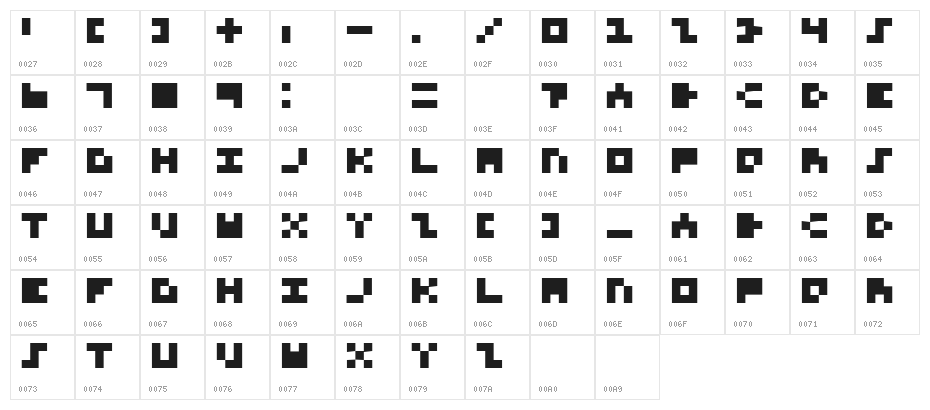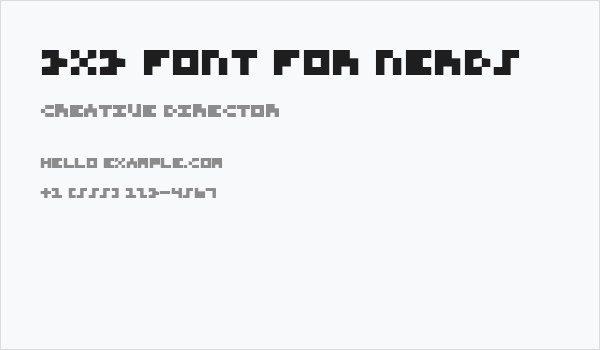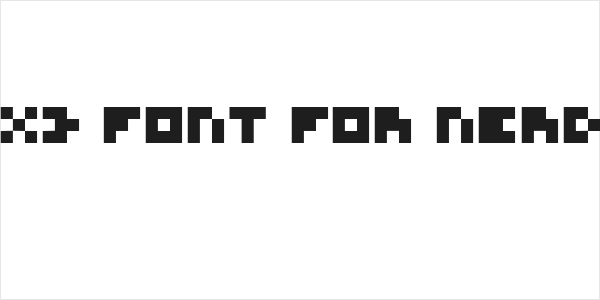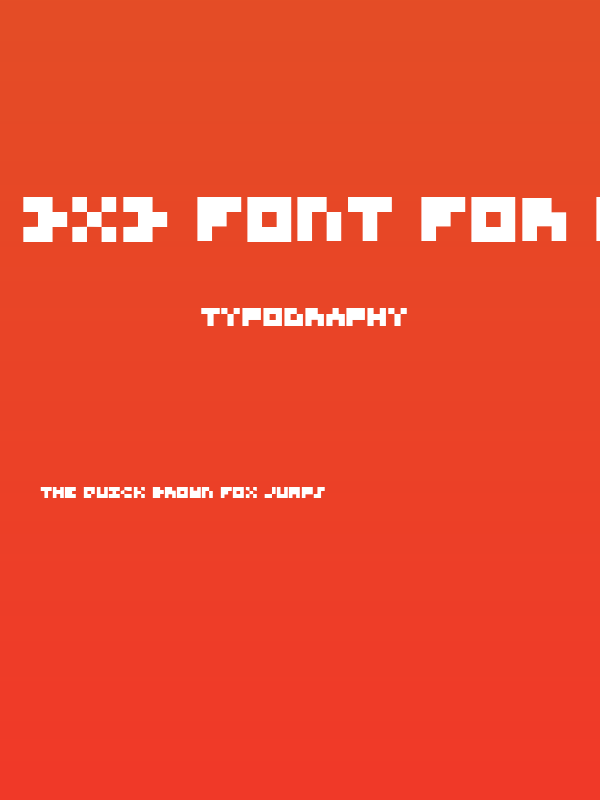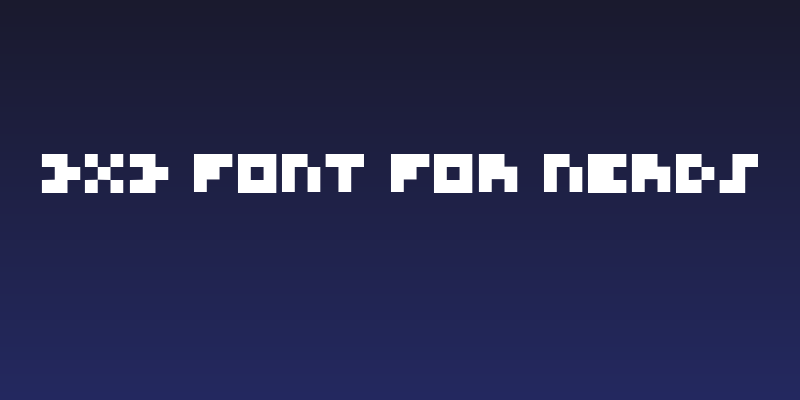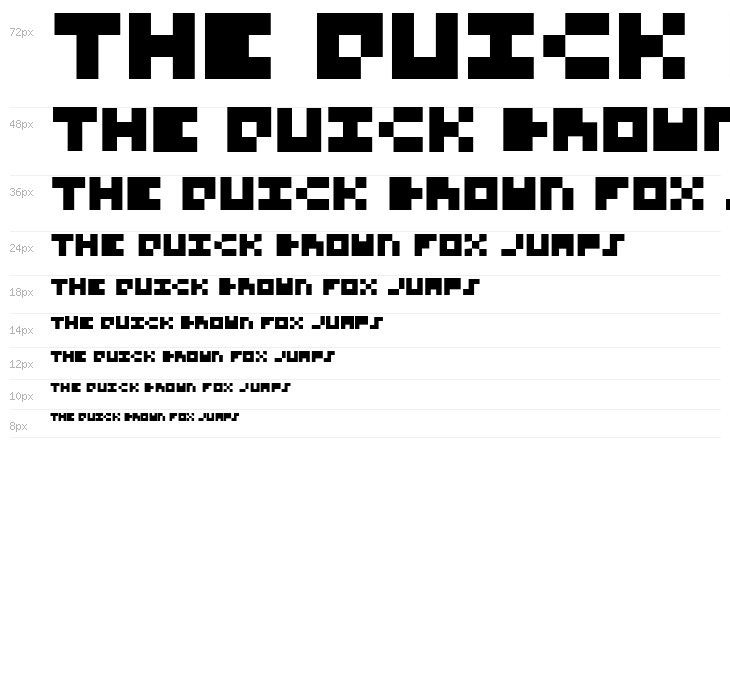
3x3 Font for Nerds Font
3x3 Font for Nerds Description
This font features a distinct pixelated design, reminiscent of early digital displays and retro video games. Each character is constructed with a grid-like pattern, giving it a blocky and geometric appearance. The uppercase and lowercase letters maintain a consistent style, with minimal differentiation between the two cases. Numbers and special characters follow the same pixelated theme, ensuring uniformity across all glyphs. The font's simplicity and uniformity make it highly legible, even at smaller sizes, while its unique style adds a nostalgic and playful touch to any project.
| Overall Style | Retro, Playful |
| Use Case | Headlines, Logos, Digital Art |
| Proposed Projects | Ideal for retro-themed designs, video game graphics, digital art projects, and any creative work seeking a nostalgic or playful aesthetic. |